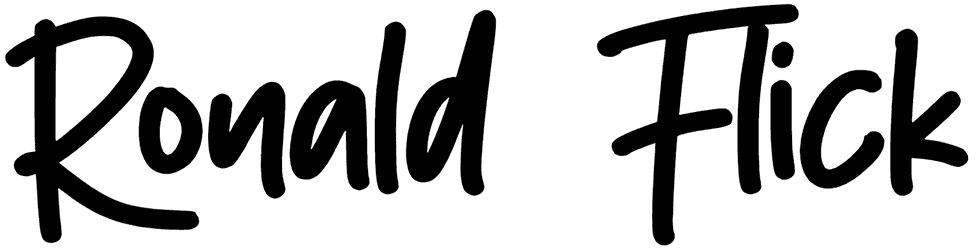
Ronald Flick Font
Unlike traditional fonts that feel cold and sterile, Ronald Flick adds a personal touch and warmth to any project. This handwritten font has smooth lines and imperfect edges that will be loved by all designers and readers by creating the essence of originality.